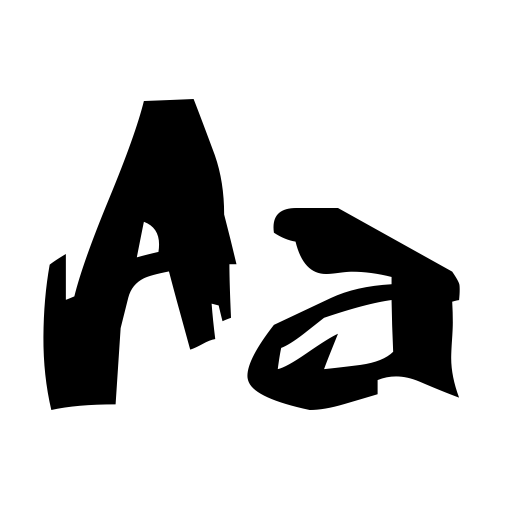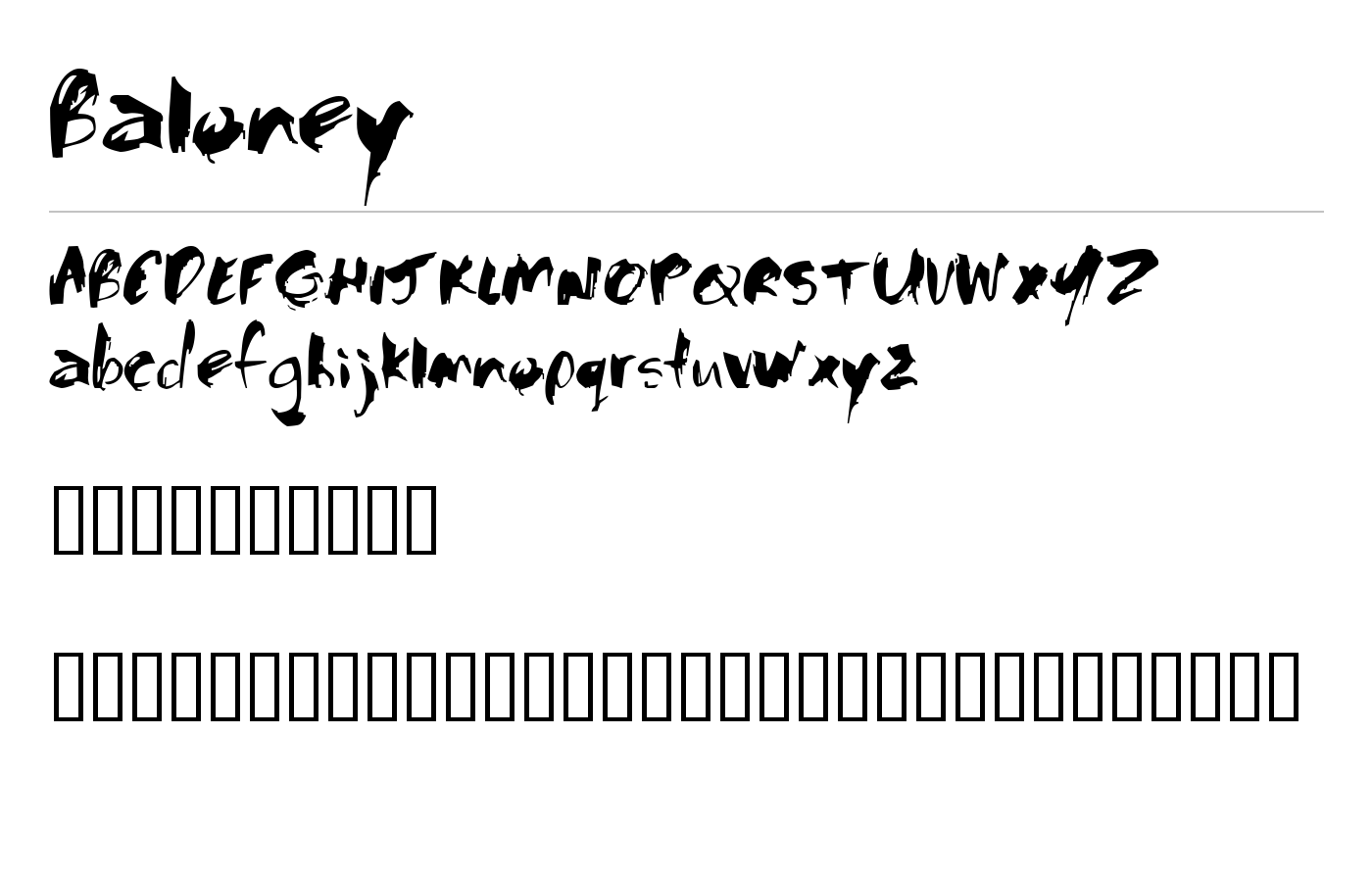
Baloney is a bold, expressive handwritten font with a rough, brush-like texture and uneven strokes that give it a spontaneous, edgy feel. Its irregular letter shapes and high contrast in stroke thickness make it perfect for creative projects needing a raw, artistic touch, such as posters, album covers, or urban streetwear branding. This font grabs attention with its unique, rebellious style, ideal for designs that want to stand out with personality and energy.
Baloney Font
About Baloney Font